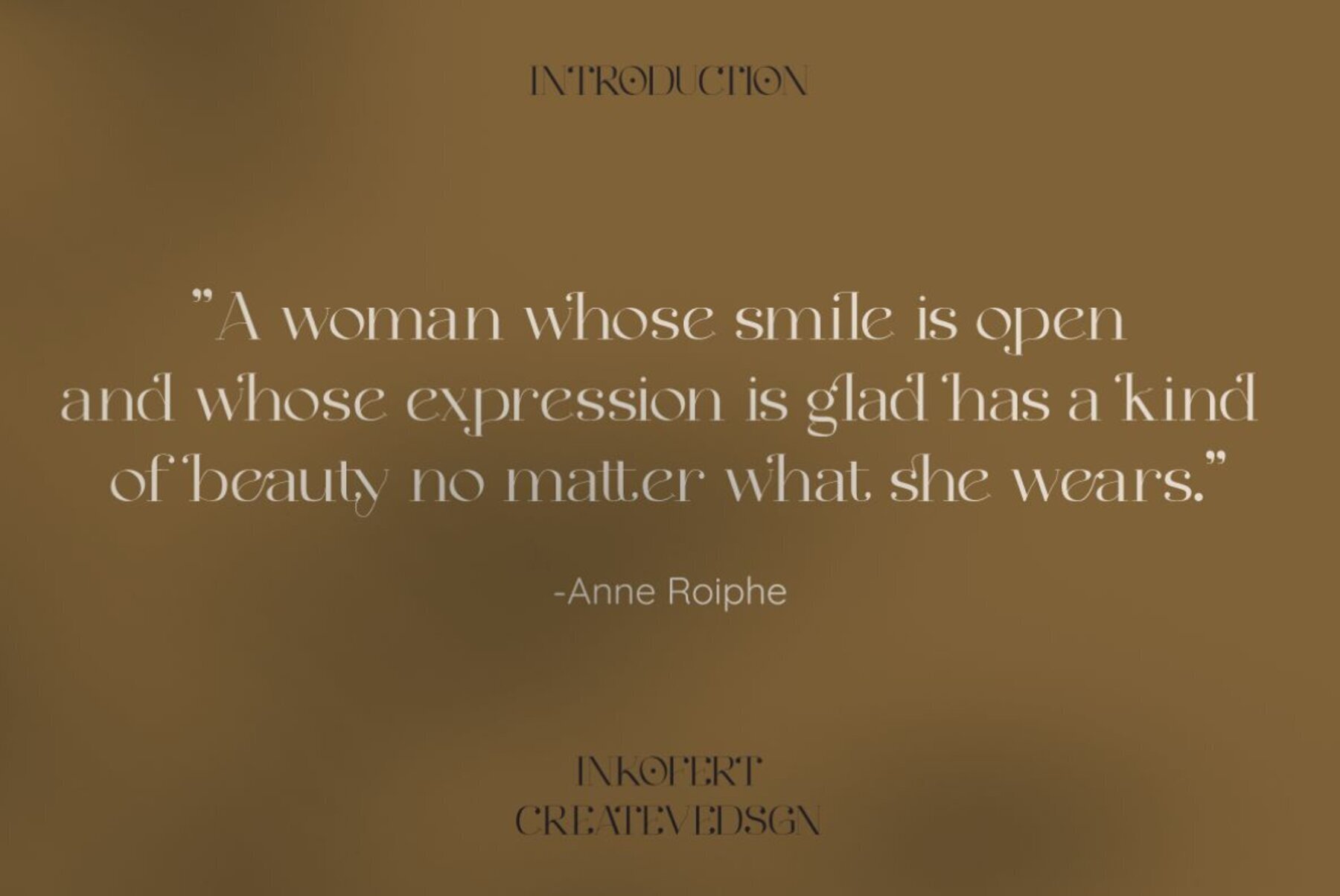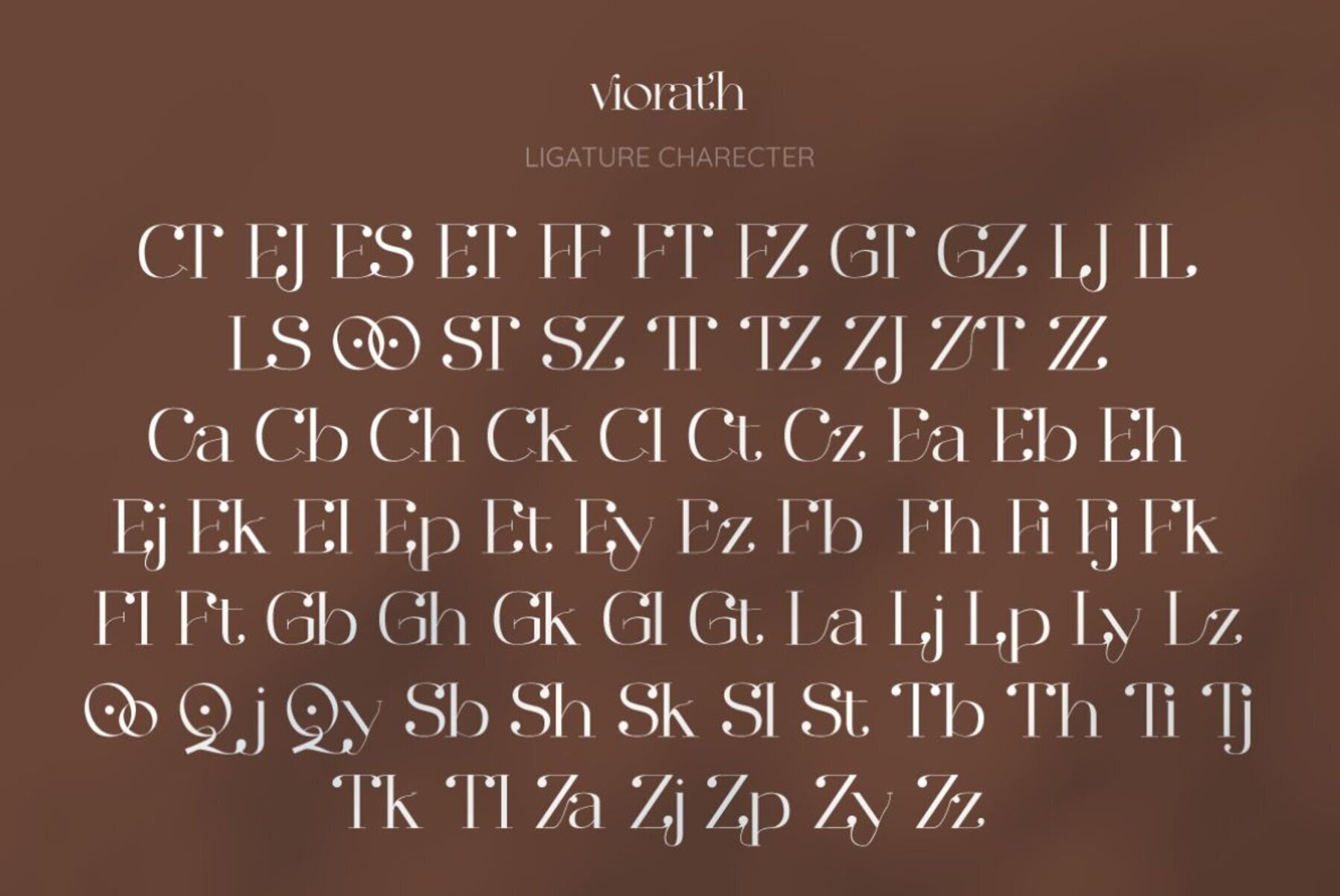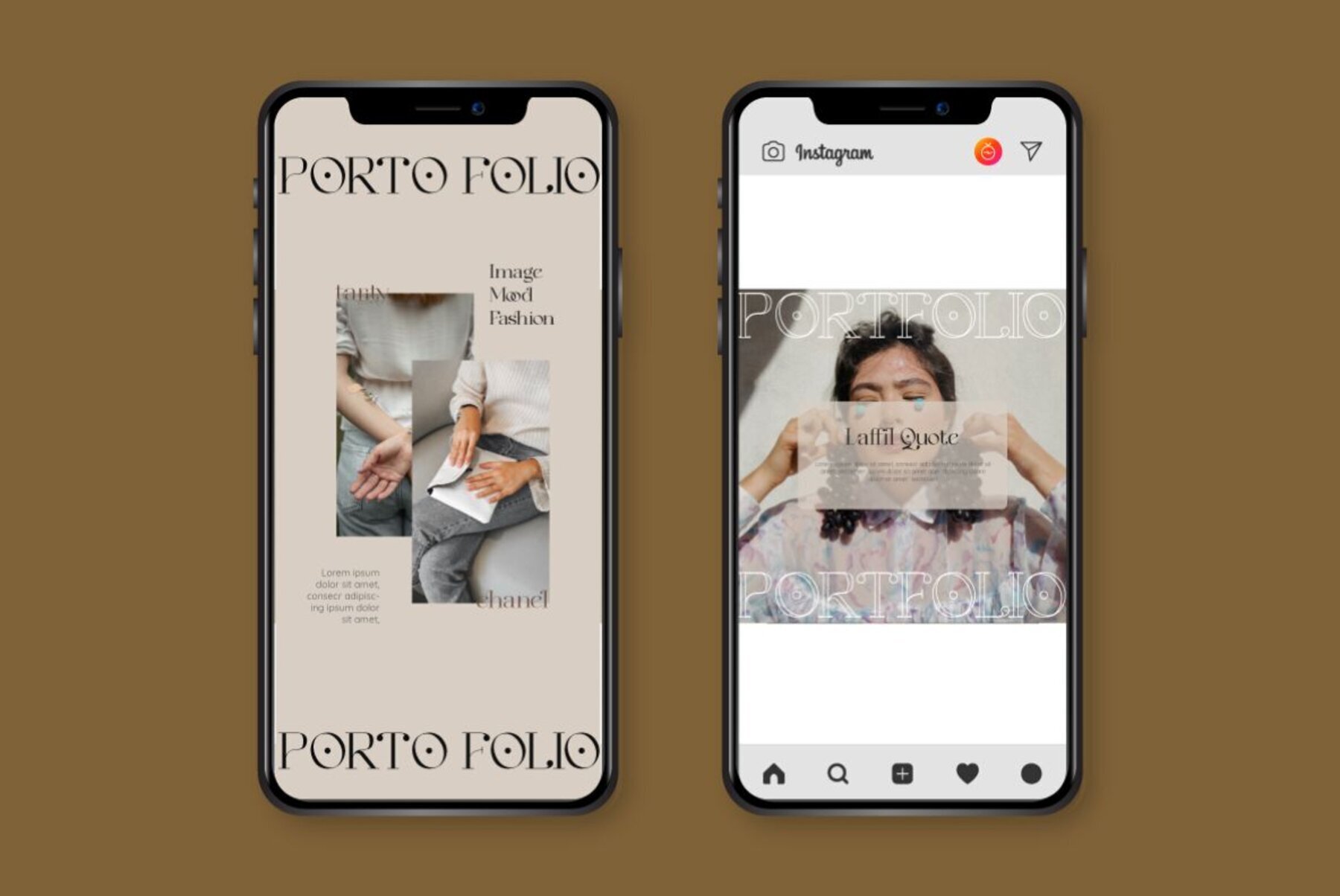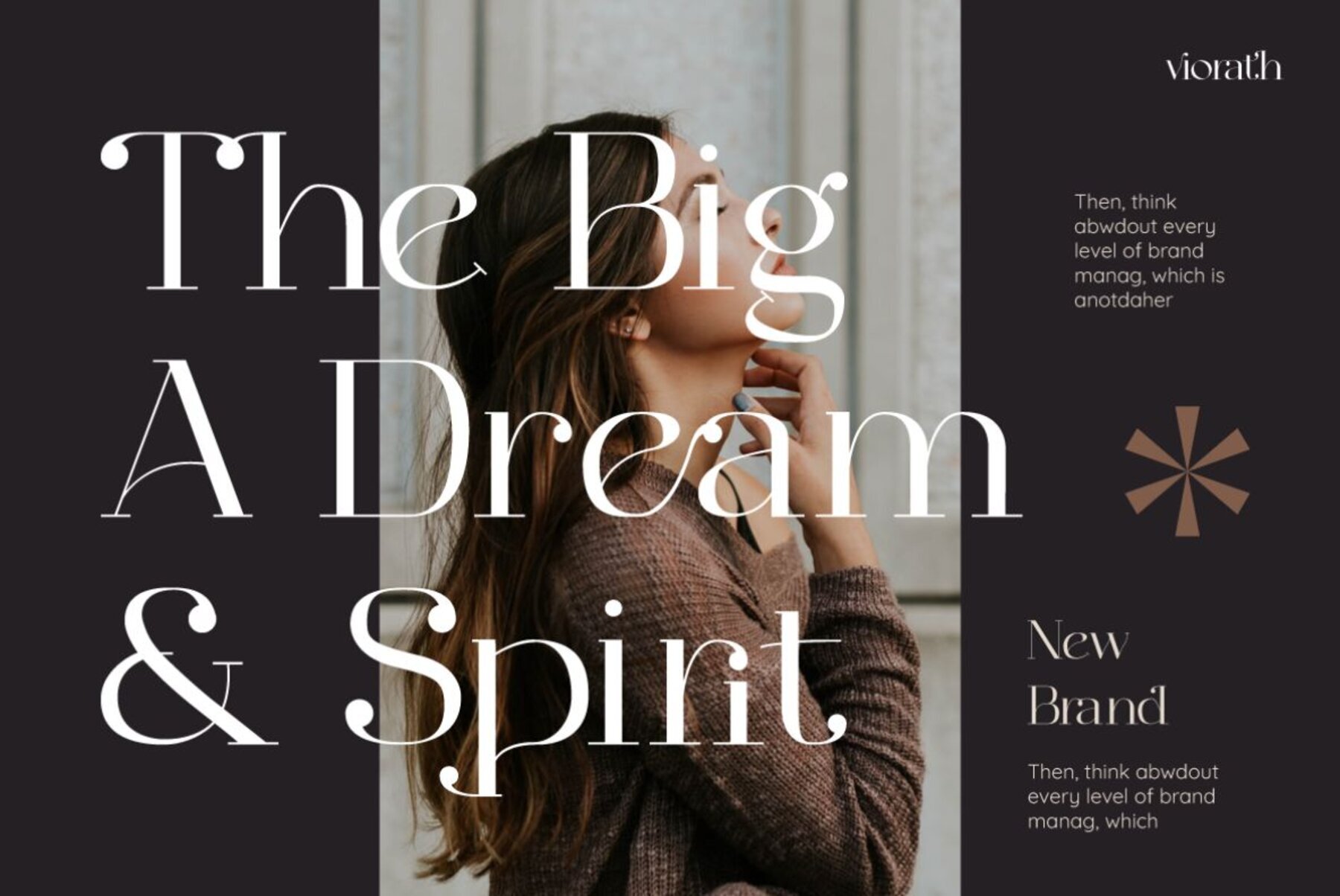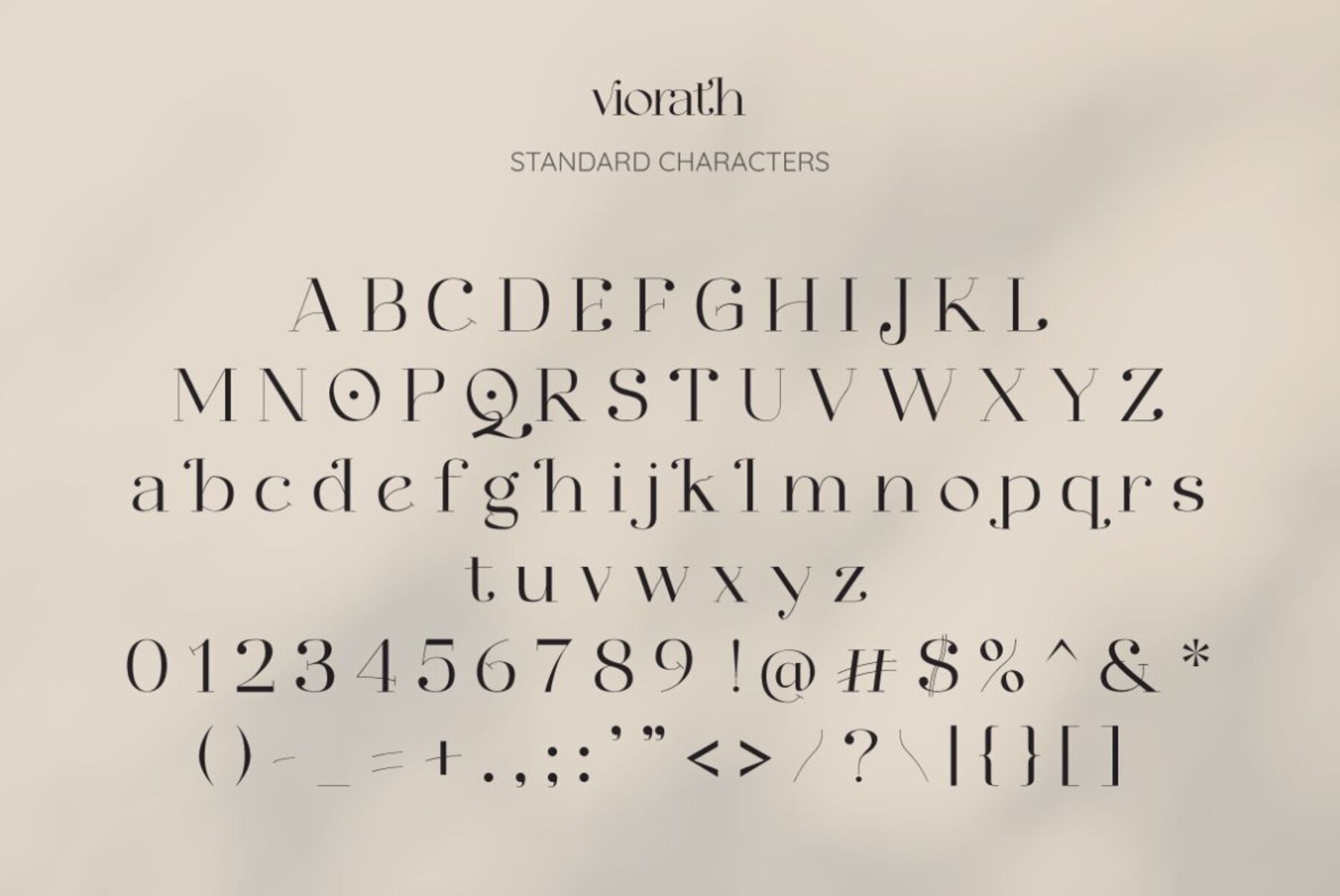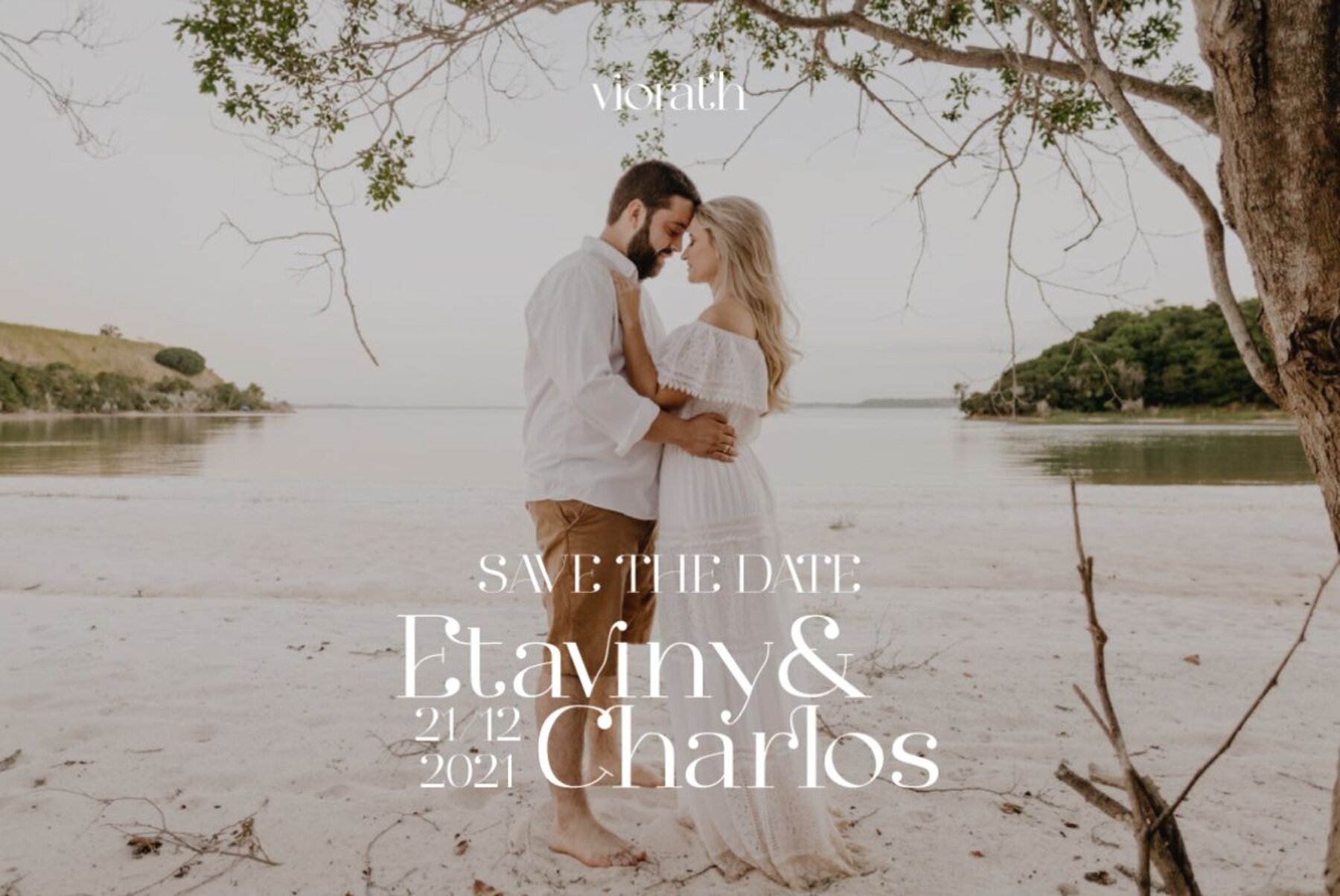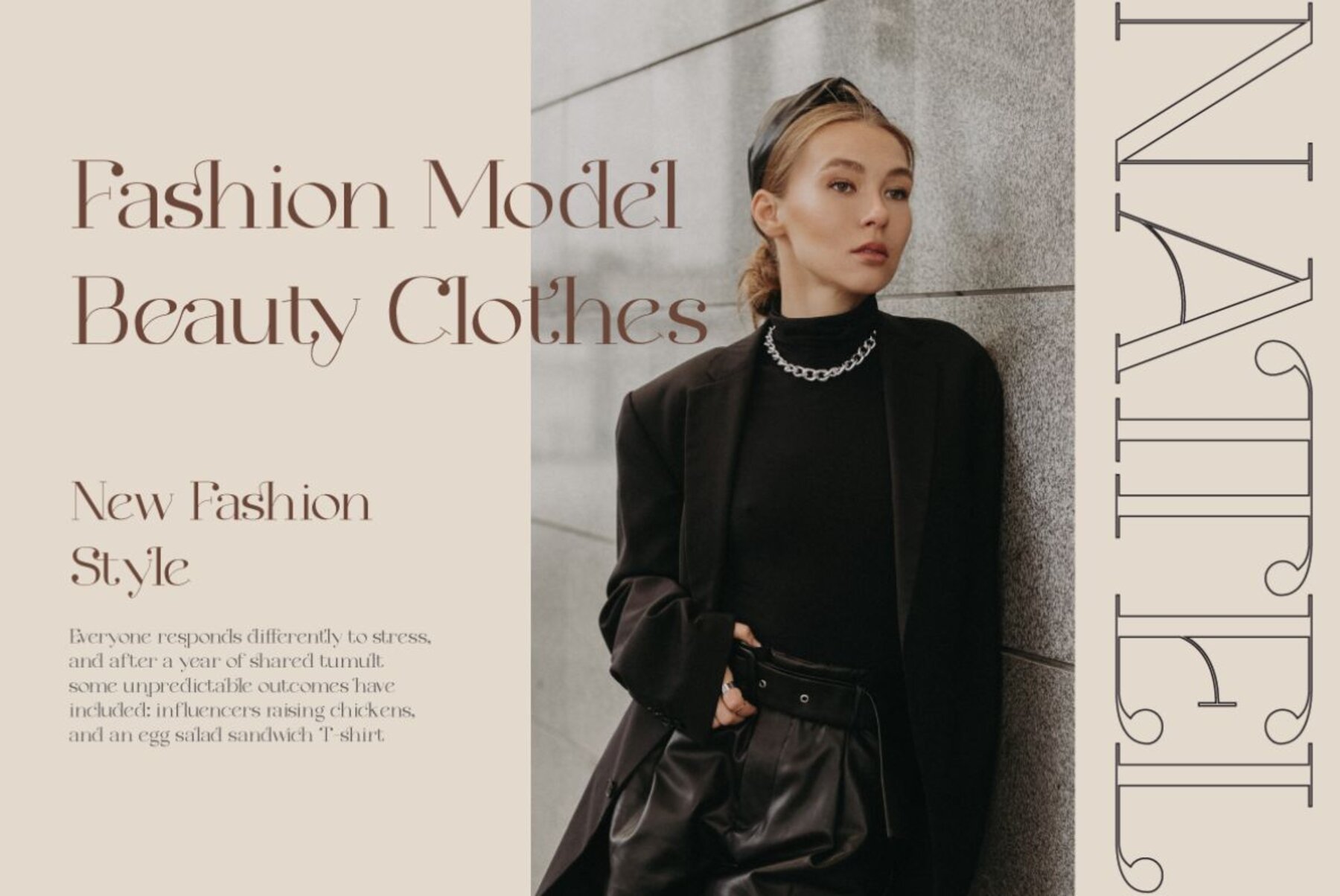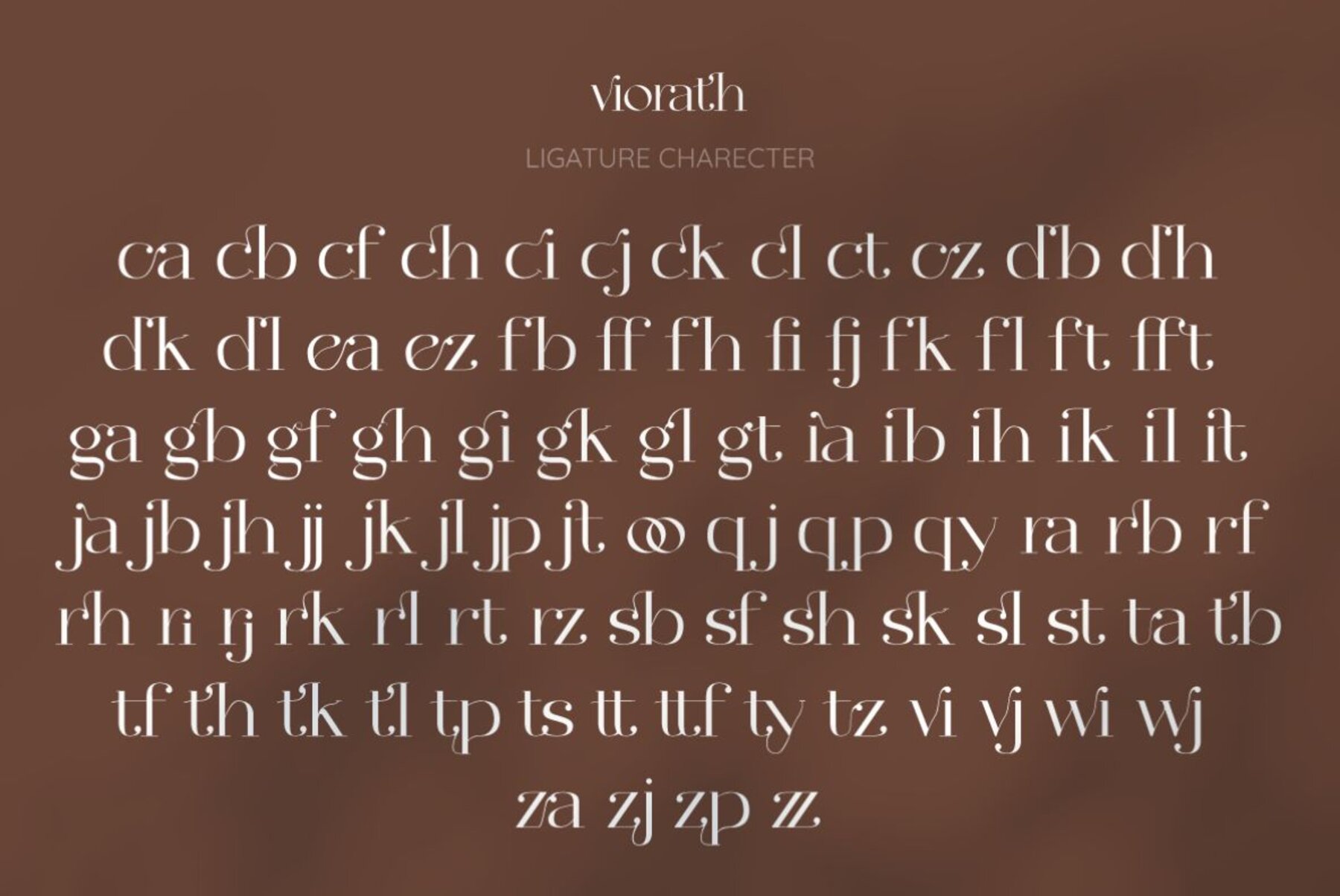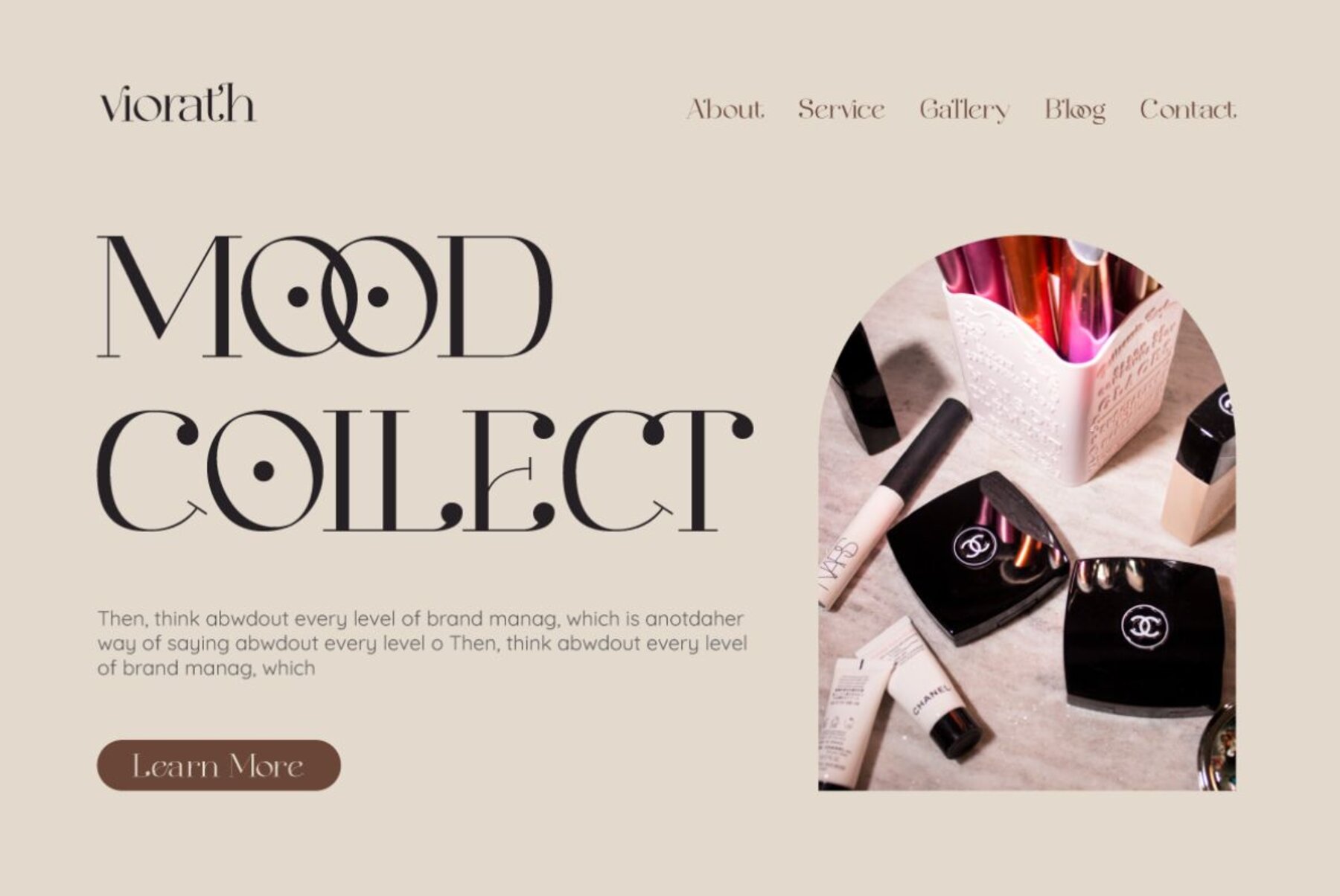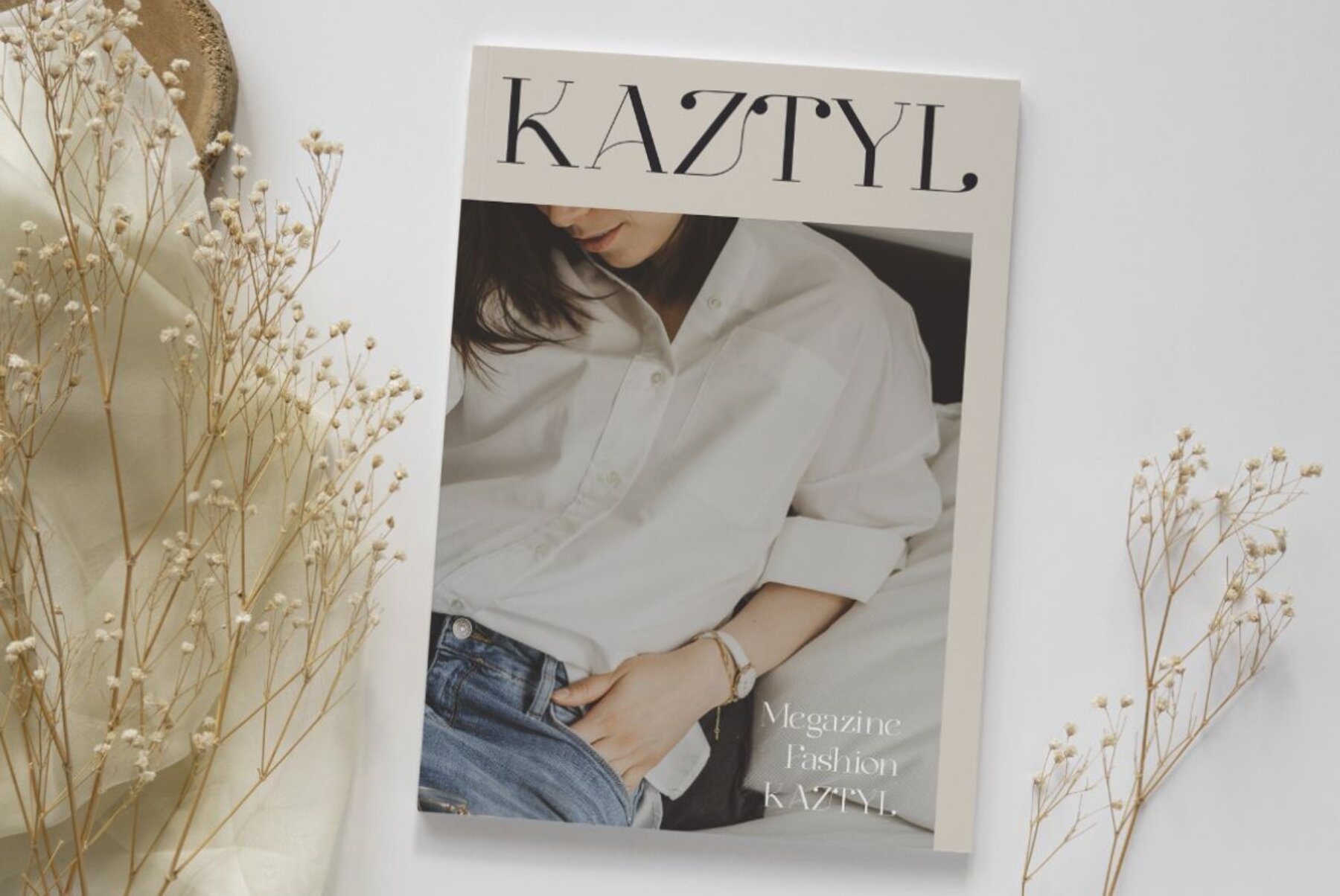
Viorath Font
Viorath
The Viorath Modern Serif Font embodies contemporary sophistication, offering the clean lines and classic elegance ideal for diverse design needs. Its unique ligatures make it a dynamic choice for crafting logos, quotes, and eye-catching social media posts. Whether you're working on branding projects, magazine layouts, or wedding invitations, Viorath seamlessly adapts to various creative contexts.Viorath: A Modern Serif for Versatile Design